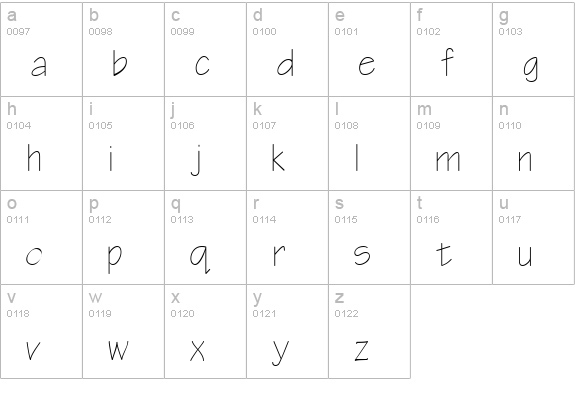
ER Architect KOI-8 Font Details
The ER Architect KOI-8 font is a stylish and sleek typeface perfect for architectural designs and projects. With its clean lines and modern aesthetics, this font exudes professionalism and sophistication. Whether you're creating blueprints, floor plans, or presentations, the ER Architect KOI-8 font will add a touch of elegance to your work. Best of all, this font is available for free download at FontsMarket.com. Simply visit the website and download the ER Architect KOI-8 font to enhance your design projects with its unique charm and versatility. Don't miss out on this opportunity to elevate your architectural creations with this exceptional font.